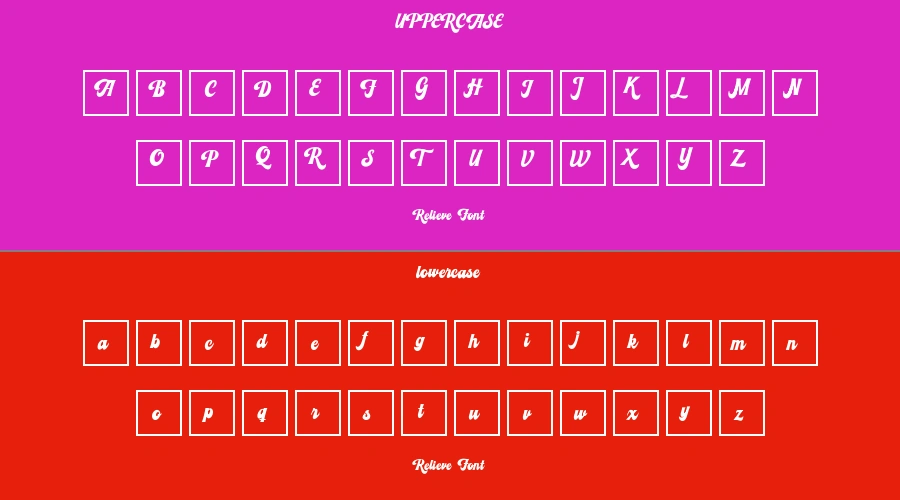
About Relieve Font
Relieve Font embodies typographic excellence through its masterful combination of pen-inspired details and refinement. Created for heritage brands, this typeface delivers exceptional functionality and user trust across all applications. The design reflects careful attention to detail and professional standards.
Advanced capabilities include distinctive artistic freedom and versatile technical characters, giving designers creative control. When used in advertisements, Relieve Font exhibits remarkable large format rendering. The harmonious balance between aperture size and technical innovation sets this typeface apart.